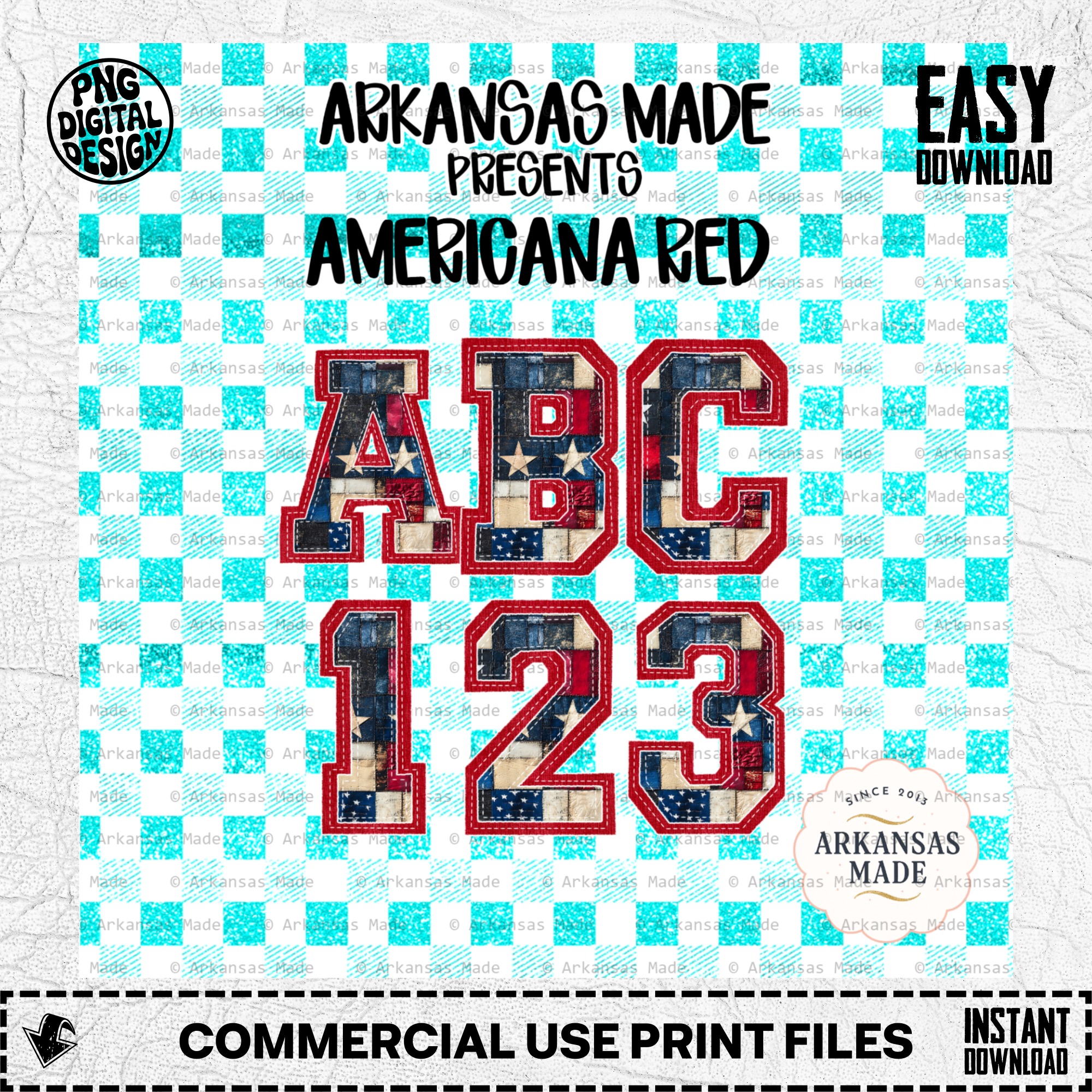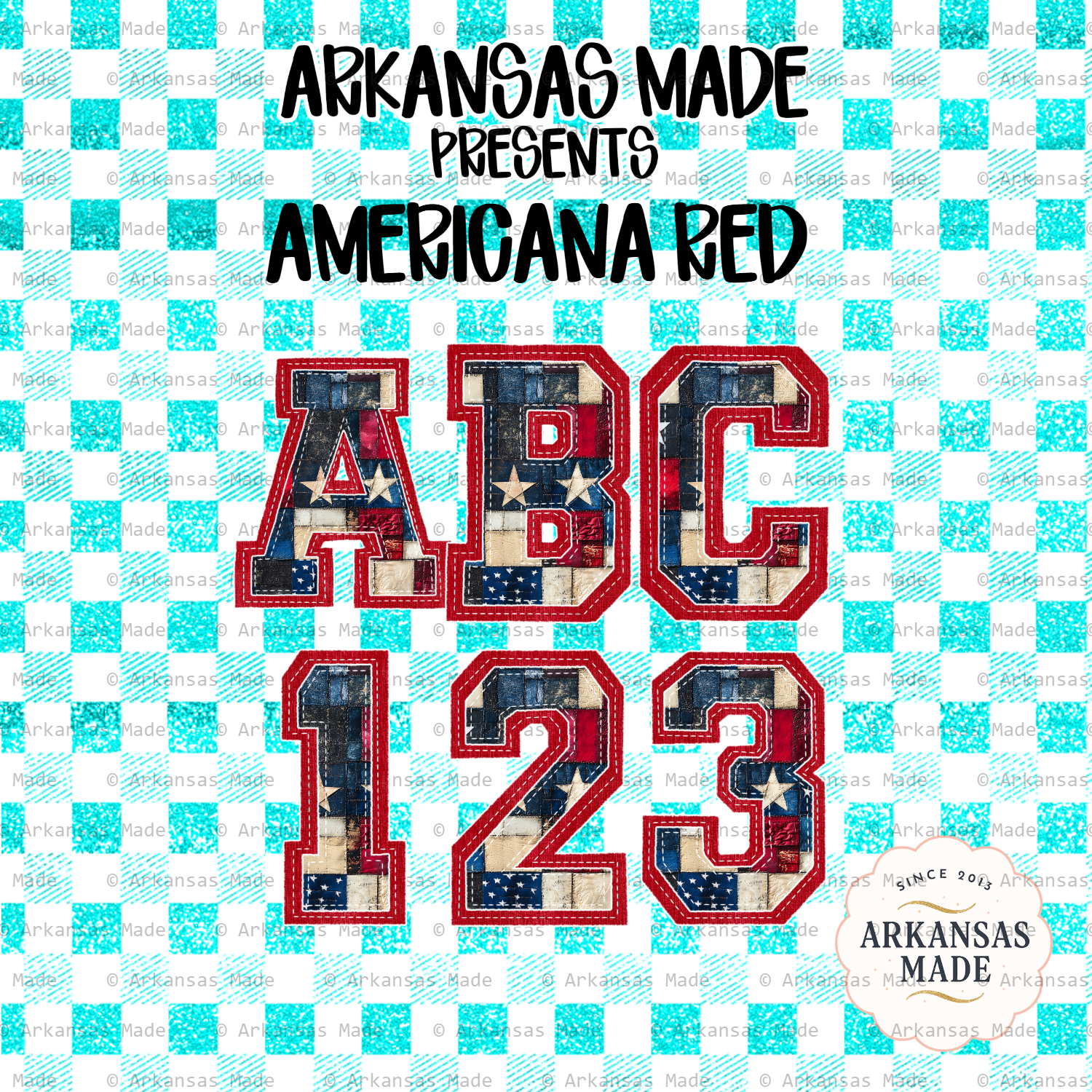
Americana Red Alpha PNGs Patriotic Varsity Letters Numbers Distressed American Flag Patch Digital Alphabet Font Bundle
Get patriotic with our Americana Red Alpha PNGs! Distressed American flag letters and numbers for your DIY projects, perfect for celebrating national pride. This vintage-inspired varsity patch effect digital alphabet brings a classic, rustic feel to any creation. Ideal for crafters, small businesses, and anyone looking to infuse American spirit into apparel, decor, and gifts. Celebrate 4th of July, Memorial Day, or show year-round pride with this versatile digital asset.